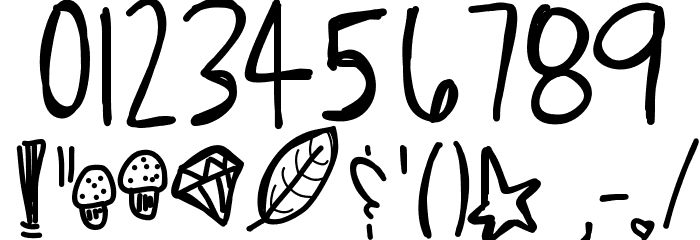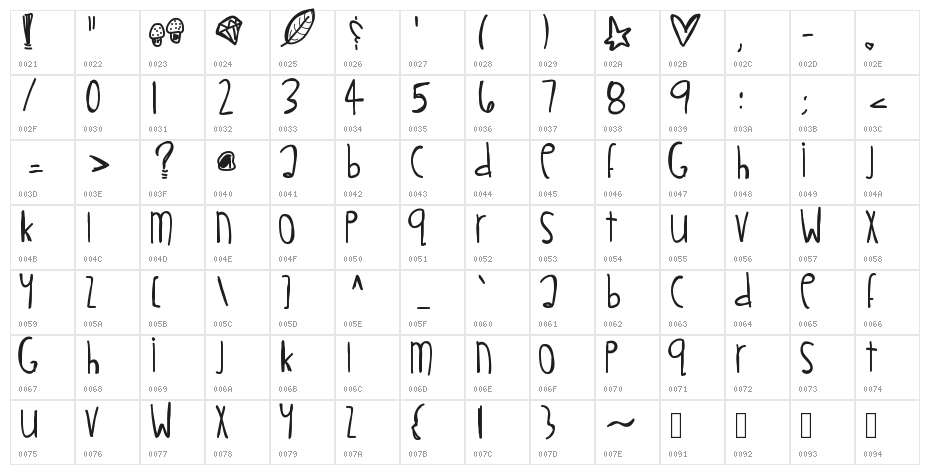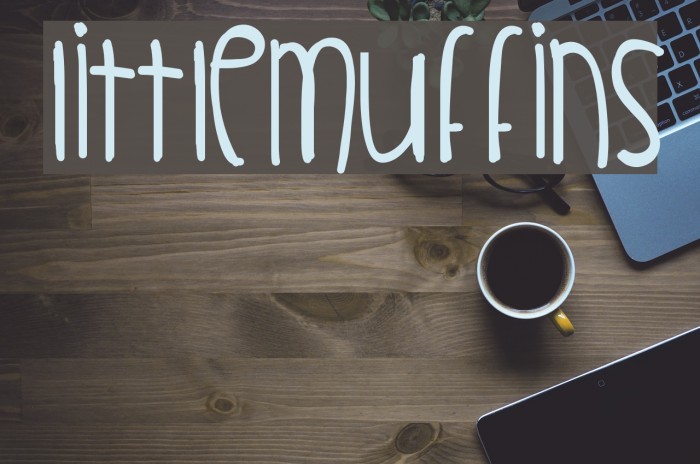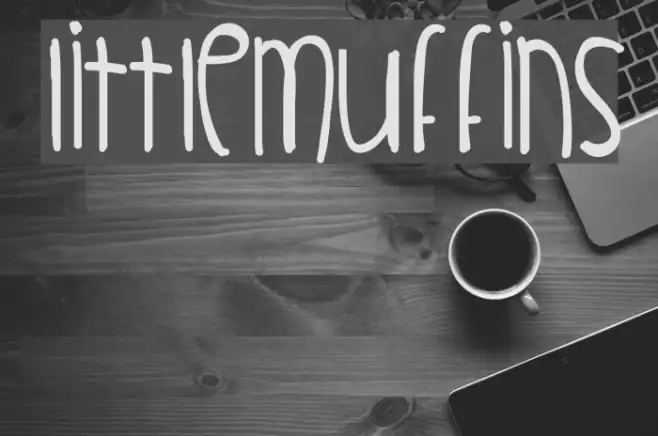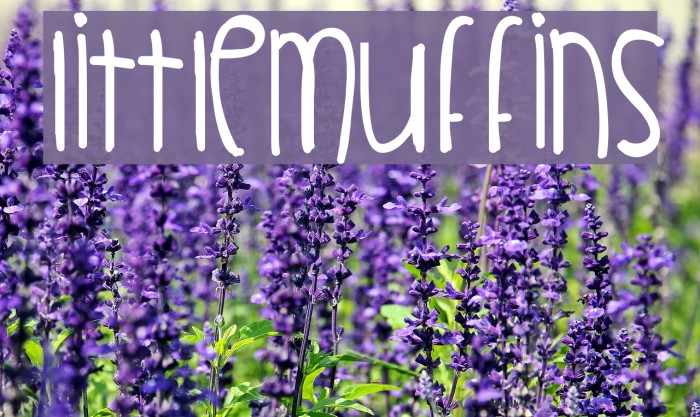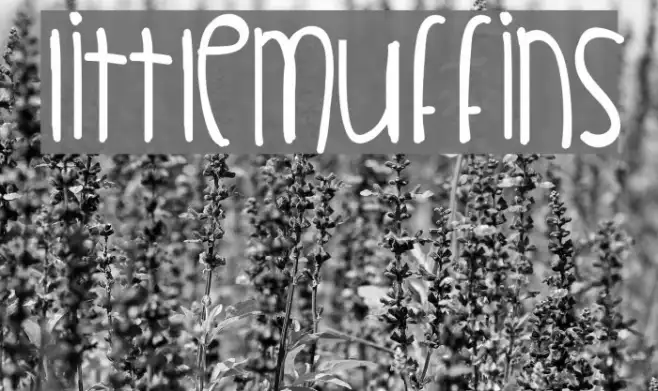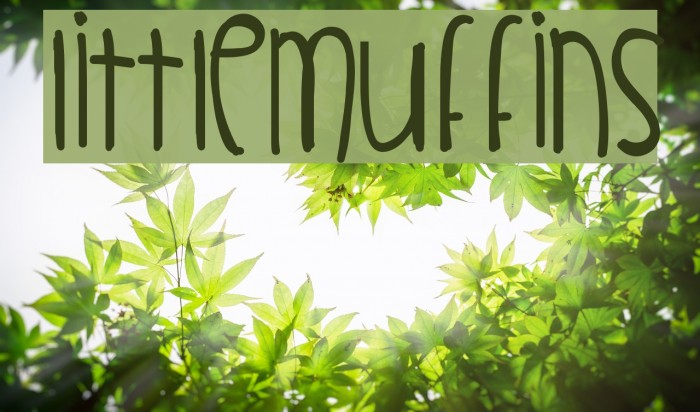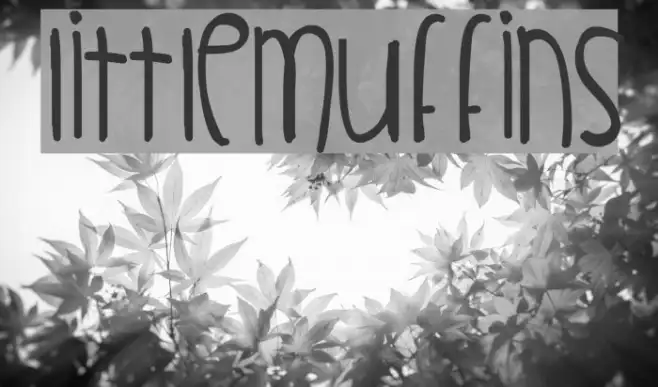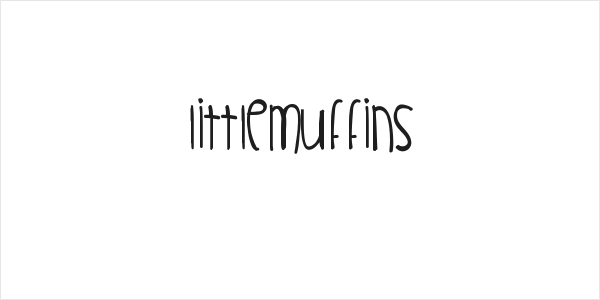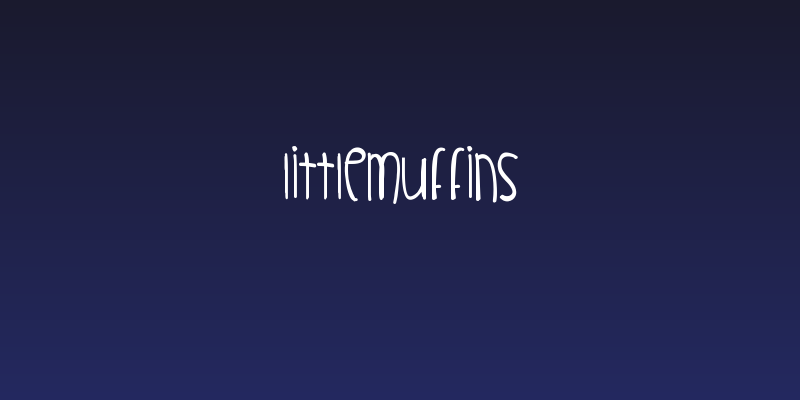
LittleMuffins Font
LittleMuffins Description
This playful and whimsical font features tall, narrow letters with a hand-drawn appearance. The strokes are uneven, adding a casual and friendly vibe. The characters are slightly irregular, giving them a unique, artistic flair. The font includes both uppercase and lowercase letters, numbers, and a selection of special characters. Its quirky style makes it perfect for projects that require a fun and informal touch. The overall look is reminiscent of doodles or handwritten notes, making it ideal for creative and lighthearted designs.
| Proposed Projects | Ideal for children's books, greeting cards, playful branding, and creative posters. |